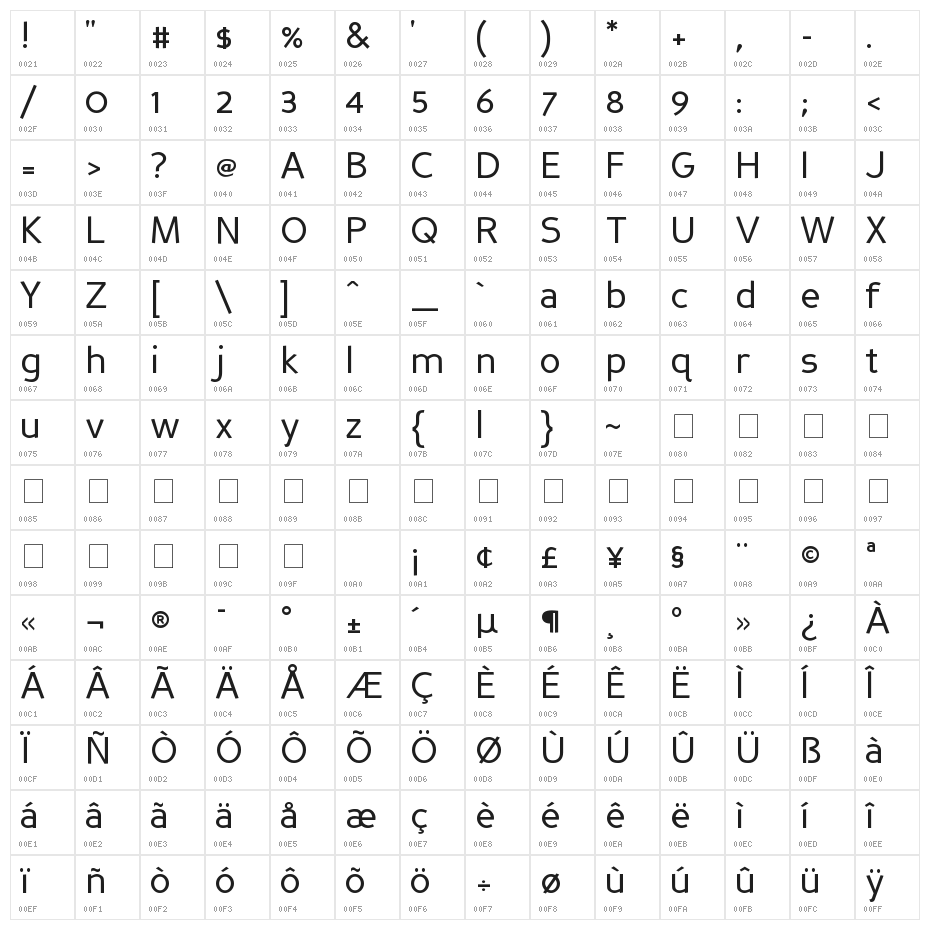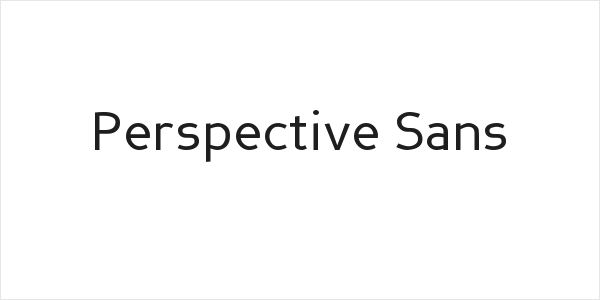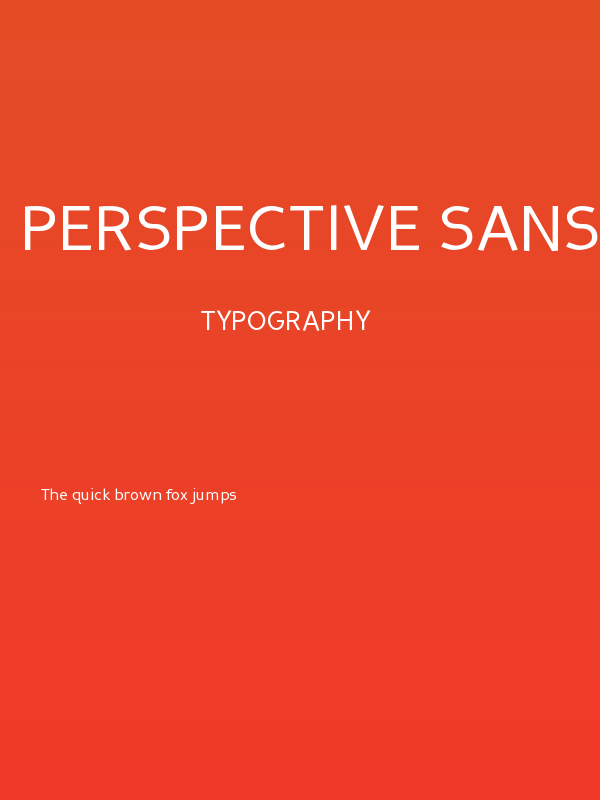
Perspective Sans Font
Perspective Sans Description
This font features a clean and modern sans-serif design, characterized by its simplicity and clarity. The letters are evenly spaced with a consistent stroke width, providing a harmonious and balanced appearance. The uppercase letters are bold and assertive, while the lowercase letters maintain a friendly and approachable feel. The numerals are clear and legible, making them suitable for various applications. Special characters are well-defined, adding versatility to the font. Overall, this font is ideal for projects that require a contemporary and professional look.
| Proposed Projects | Ideal for branding, web design, corporate materials, and editorial layouts. |